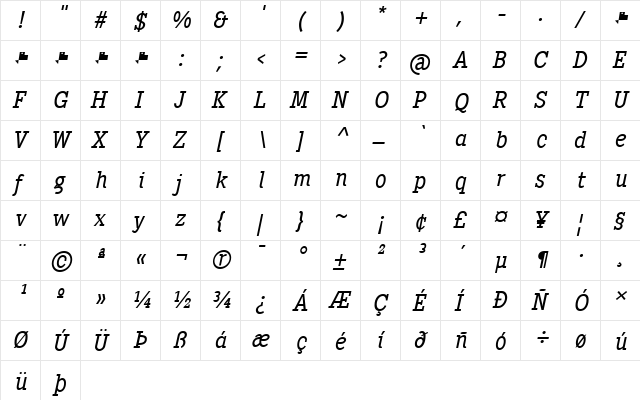
Pentay Book Italic
| Foundry | deFharo |
| Designer | Fernando Haro |
Design Context for Pentay Typeface
Pentay is a composed and adaptable typeface that performs quietly and consistently across a wide range of design contexts. The dynamic lean of this cut emphasises speed and emphasis in any layout.
Pro Tip: Try Pentay for annotation and caption copy alongside an upright companion — the contrast in angle creates a dynamic but ordered typographic system.